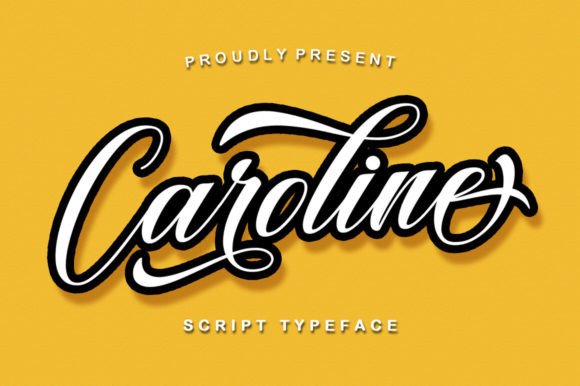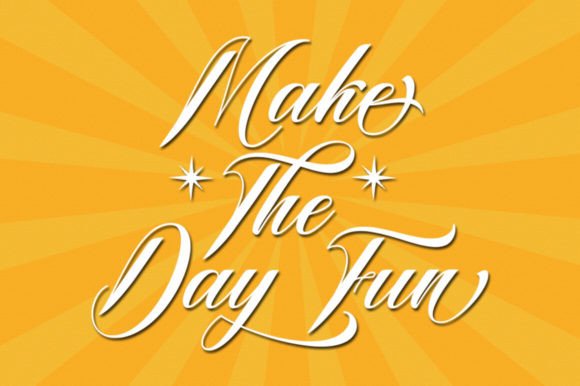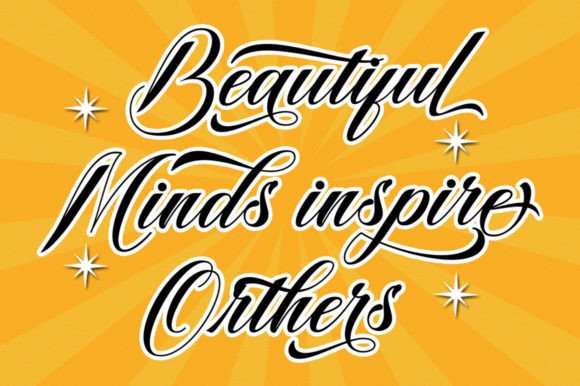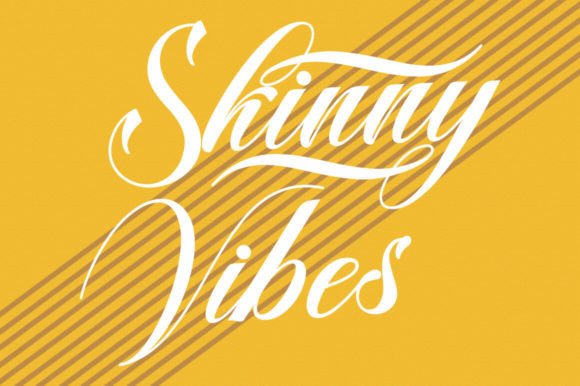
Caroline Font: Groovy Retro Script for Eye-Catching Design
About the Caroline Font
Get ready to be inspired by Caroline Font, a fresh and dynamic typeface for modern creators. Caroline font is a retro font in vintage style. Inspired by retro typography and typography from the 60s 70s and 80s, anything written in this font is instantly recognizable and will attract attention. The shape is unique where every corner is softer and rounded. Use this display font to add a special retro touch to any design idea you can think of.
Caroline’s rounded forms and vintage styling make it ideal for headlines, logos, short taglines, and posters requiring a retro aesthetic. It works particularly well for projects related to fashion, music, or food, evoking a sense of nostalgia and playful sophistication. However, its low x-height and decorative nature make it unsuitable for body text or lengthy passages. Avoid using it in UI contexts or situations demanding high readability.
To complement Caroline’s retro charm, pair it with a clean sans-serif like Futura or a more geometric sans-serif for a modern contrast. For a warmer feel, consider pairing it with a serif like Garamond or a script font like Playfair Display, but use these sparingly to avoid visual clutter. These pairings offer visual balance and prevent the design from feeling overly busy.
Caroline’s overall personality is best described as retro-modern; it’s bold yet friendly, maintaining a balance between vintage charm and contemporary appeal. This makes it a versatile choice for brands aiming for a nostalgic yet fresh identity.
Caroline Font Usage Examples
Caroline Font Example